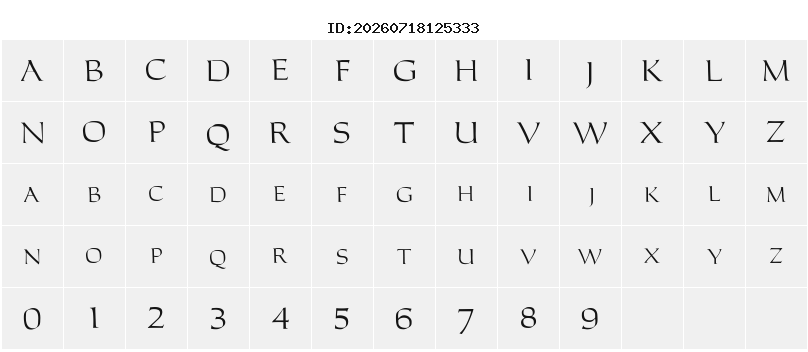
About CarolusRomanFon.ttf
CarolusRomanFon.ttf is a modern, elegant sans-serif font designed for ultimate readability and visual harmony. Perfect for branding, headlines, web design, and print materials.